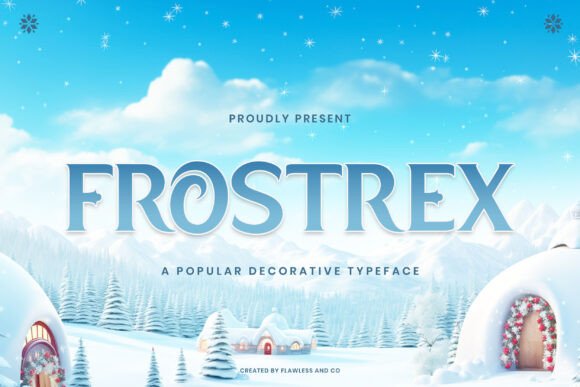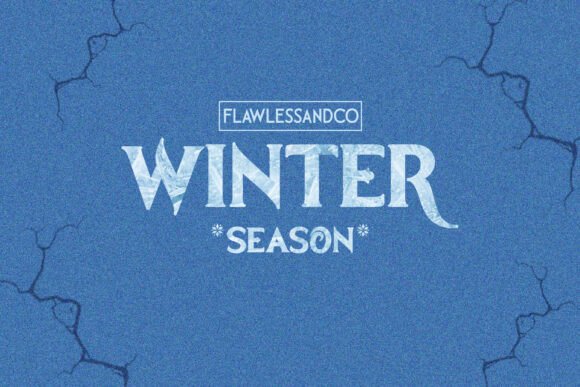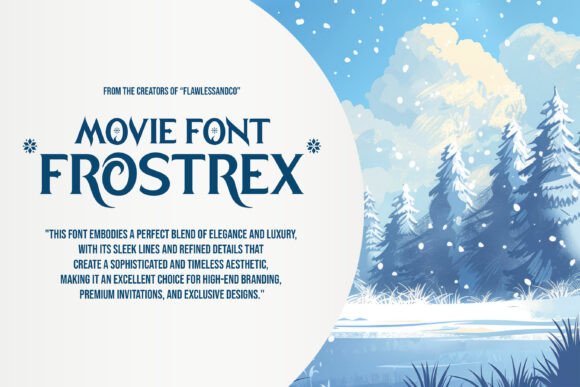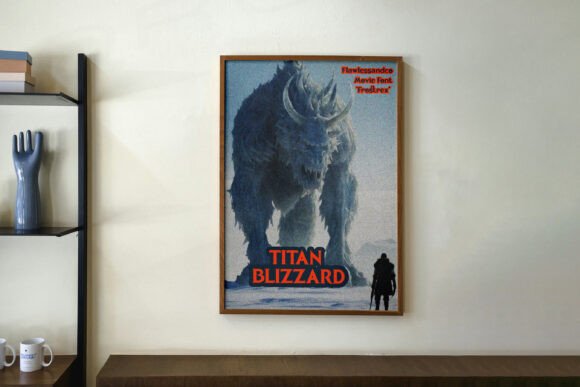
Frostrex Font: Magical Display Font for Fairy Tale Designs & More!
About the Frostrex Font
Experience the unique personality of Frostrex Font, a font designed for impact. Frostrex is a magical display font inspired by the enchanting world of Disney. With its whimsical and elegant letterforms, this font is suitable for fairy tale-themed projects, children’s books, fantasy movie posters, animated film titles, theme park branding, merchandise design, and storybook covers. Perfect for bringing a touch of wonder and fantasy to your creative works!
Frostrex’s whimsical elegance shines brightest in display applications such as headlines, logos, and short-form text on posters or packaging. Its delicate details, however, don’t translate well to body text or UI elements requiring high readability. Avoid using it for long paragraphs or small sizes.
Its inherent playfulness pairs well with a contrasting, clean sans-serif like Lato for a balanced feel, or a more geometric sans-serif like Futura for a modern twist. For a sophisticated touch, consider pairing it with a classic serif like Garamond.
Frostrex projects a lighthearted yet sophisticated personality, ideal for brands targeting a younger demographic with a penchant for fantasy or whimsical aesthetics. Think children’s products, magical-themed events, or entertainment brands.
Frostrex Font Usage Examples
Frostrex Font Example